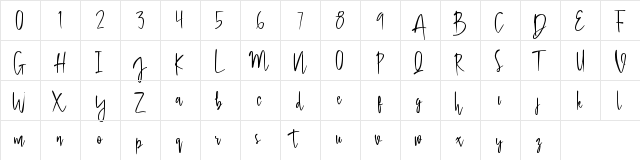
Honey Lemon Regular
Design Context for Honey Lemon Typeface
Honey Lemon is a composed and adaptable typeface that performs quietly and consistently across a wide range of design contexts.
Pro Tip: Use Honey Lemon in both headline and body roles to test its range before committing to a single application.